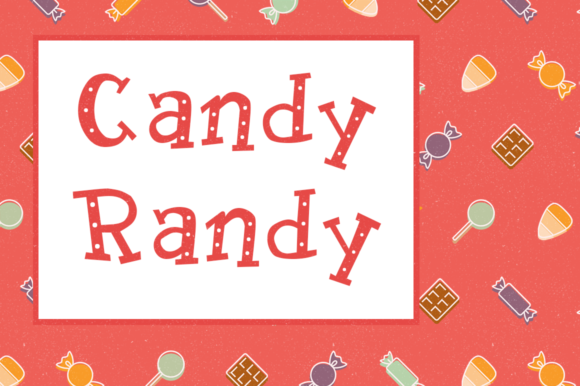
Behold, Candy Randy Font: A Serendipitous Fusion of Nostalgia and Whimsy
In a world saturated with digital monotony, Candy Randy Font emerges as a beacon of individuality and charm. Inspired by the enchanting allure of vintage children's advertising and packaging from the early 1960s, this serif font family transports you to an era where imagination reigned supreme.
With its playful curves and nostalgic undertones, Candy Randy Font evokes a sense of wonder and lightheartedness. Each character dances across the screen, captivating the audience with its unique personality. Whether you're a seasoned designer or a creative enthusiast, Candy Randy Font is your gateway to a world of limitless possibilities.
Unleash Your Creativity:
With Candy Randy Font as your creative companion, you'll discover a boundless universe of design opportunities. Create eye-catching logos that radiate vintage charm, design whimsical posters that transport viewers to a simpler time, or craft stunning invitations that exude a touch of nostalgia. The possibilities are endless, limited only by your imagination.
Embrace the Past, Enchant the Present:
Candy Randy Font is not just a font; it's a time capsule that captures the essence of a bygone era. Its playful spirit and retro aesthetics will add a touch of magic to any project, whether it's a personal journal, a captivating social media post, or an unforgettable branding campaign. As you work with Candy Randy Font, you'll feel the creative energy flowing through your veins, propelling you to new heights of design excellence.
A Font with a Heart:
More than just a collection of characters, Candy Randy Font is a symbol of creativity, passion, and the enduring power of nostalgia. Each stroke, each curve, and each carefully crafted detail speaks to the dedication and artistry of its creator, Lauren Ashpole. With every project you undertake using Candy Randy Font, you become part of a creative legacy that spans generations.